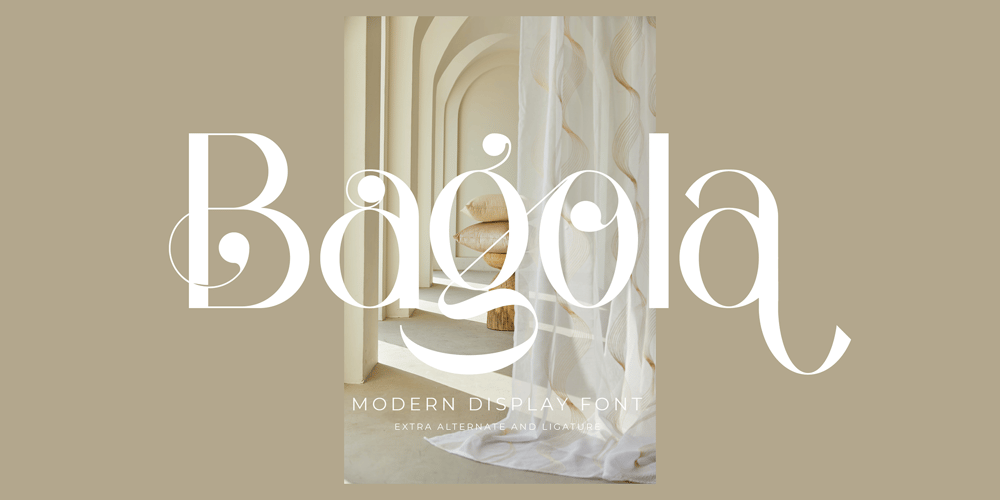
Bagola Font Family was designed by Heru Utama Putra and published by Letterena Studios. Bagola contains 2 styles and family package options. Bagola is an elegant serif font. Its flexibility and neat style will brighten up each of your designs. Have fun with this cool font and explore its endless variations.This font is PUA encoded which means you can access all of the glyphs and swashes with ease!